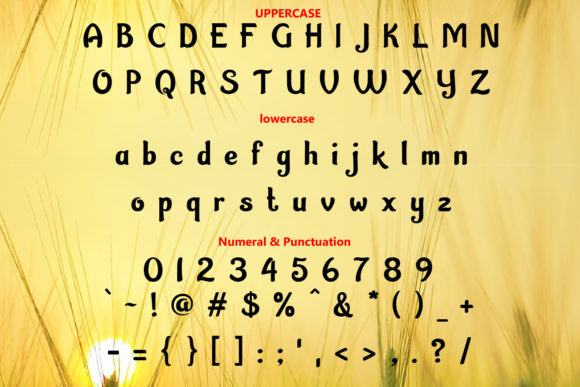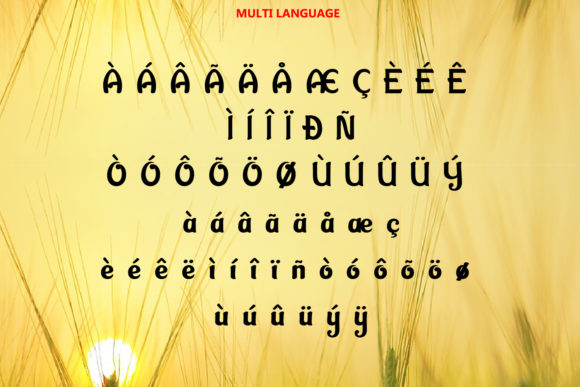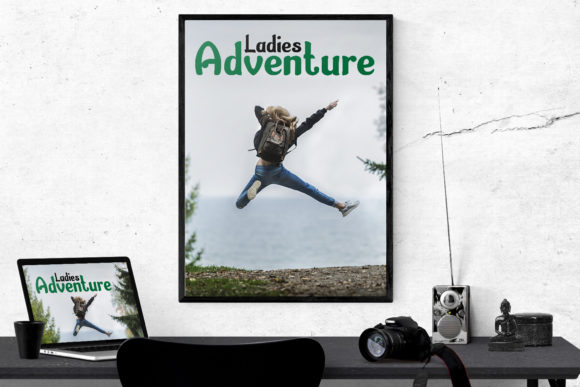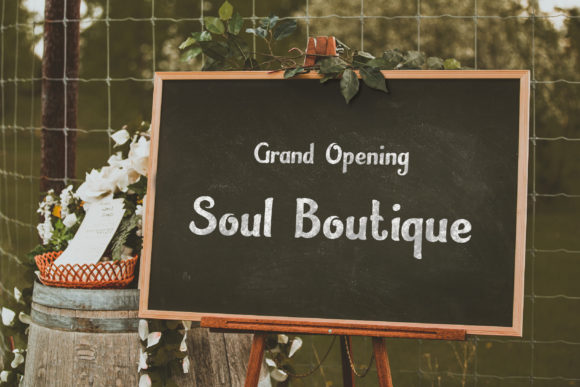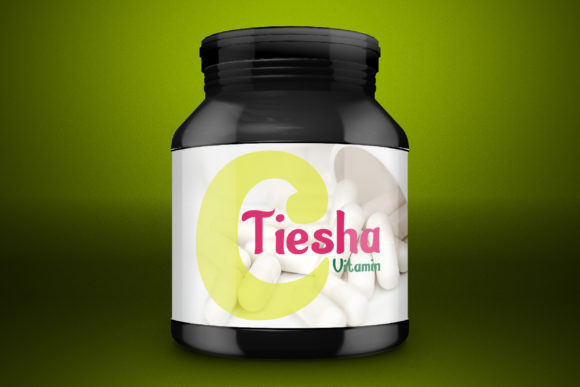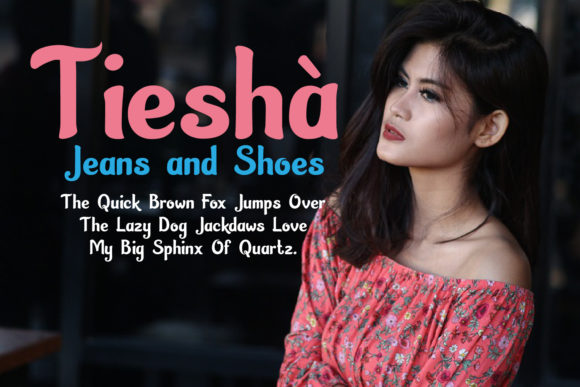
Driyorejo Font: Unleash Your Creativity with this Whimsical Handwritten Font
Are you tired of using the same old fonts for your creative projects? Do you want to add a touch of fun and quirkiness to your designs? Look no further than the Driyorejo font! This enchanting handwritten font is designed to turn any creative idea into a true standout. In this article, we’ll dive into the world of Driyorejo and explore what makes it so special.
The Story Behind Driyorejo
Driyorejo is more than just a font – it’s a reflection of creativity and individuality. Its unique and quirky design makes it perfect for designers and crafters who want to add a personal touch to their work. Whether you’re creating a logo, a poster, or a social media graphic, Driyorejo is sure to make your design pop.
What Makes Driyorejo So Special?
So, what sets Driyorejo apart from other fonts? Here are just a few things that make it so special:
- Handwritten with love: Driyorejo is a handwritten font, which means it has a personal and authentic feel that’s hard to replicate with digital fonts.
- Fun and quirky: Driyorejo embodies the spirit of fun and quirkiness, making it perfect for designers who want to add a touch of whimsy to their work.
- Authentic and unique: With Driyorejo, you can be sure that your designs will stand out from the crowd. Its unique design ensures that your work will be noticed and remembered.
How to Use Driyorejo in Your Designs
Using Driyorejo in your designs is easy! Here are a few tips to get you started:
- Pair it with bold colors: Driyorejo looks amazing with bold, bright colors. Try pairing it with a bold color scheme to really make your design pop.
- Use it for headings: Driyorejo is perfect for headings and titles. Its unique design makes it a great choice for grabbing attention and adding visual interest to your design.
- Experiment with textures: Driyorejo looks great with textures and patterns. Try adding a texture or pattern to your design to give it an extra layer of depth and interest.
Driyorejo is a font that’s perfect for designers and crafters who want to add a personal touch to their work. Whether you’re creating digital designs or handmade crafts, Driyorejo is a great choice. Its unique design and quirky feel make it perfect for:
- Digital designs: Driyorejo is perfect for digital designs, including social media graphics, blog posts, and website headers.
- Handmade crafts: Driyorejo is also great for handmade crafts, including scrapbooking, card making, and journaling.
- Branding and marketing: Driyorejo can be used for branding and marketing materials, including logos, brochures, and flyers.
In conclusion, Driyorejo is a font that’s sure to bring a touch of fun and quirkiness to your designs. Its unique and authentic design makes it perfect for designers and crafters who want to add a personal touch to their work. With its bold and playful feel, Driyorejo is sure to turn any creative idea into a true standout. So why not give it a try and see what amazing designs you can create?
- Handwritten font with a personal touch
- Fun and quirky design
- Authentic and unique
- Perfect for digital designs, handmade crafts, and branding and marketing materials